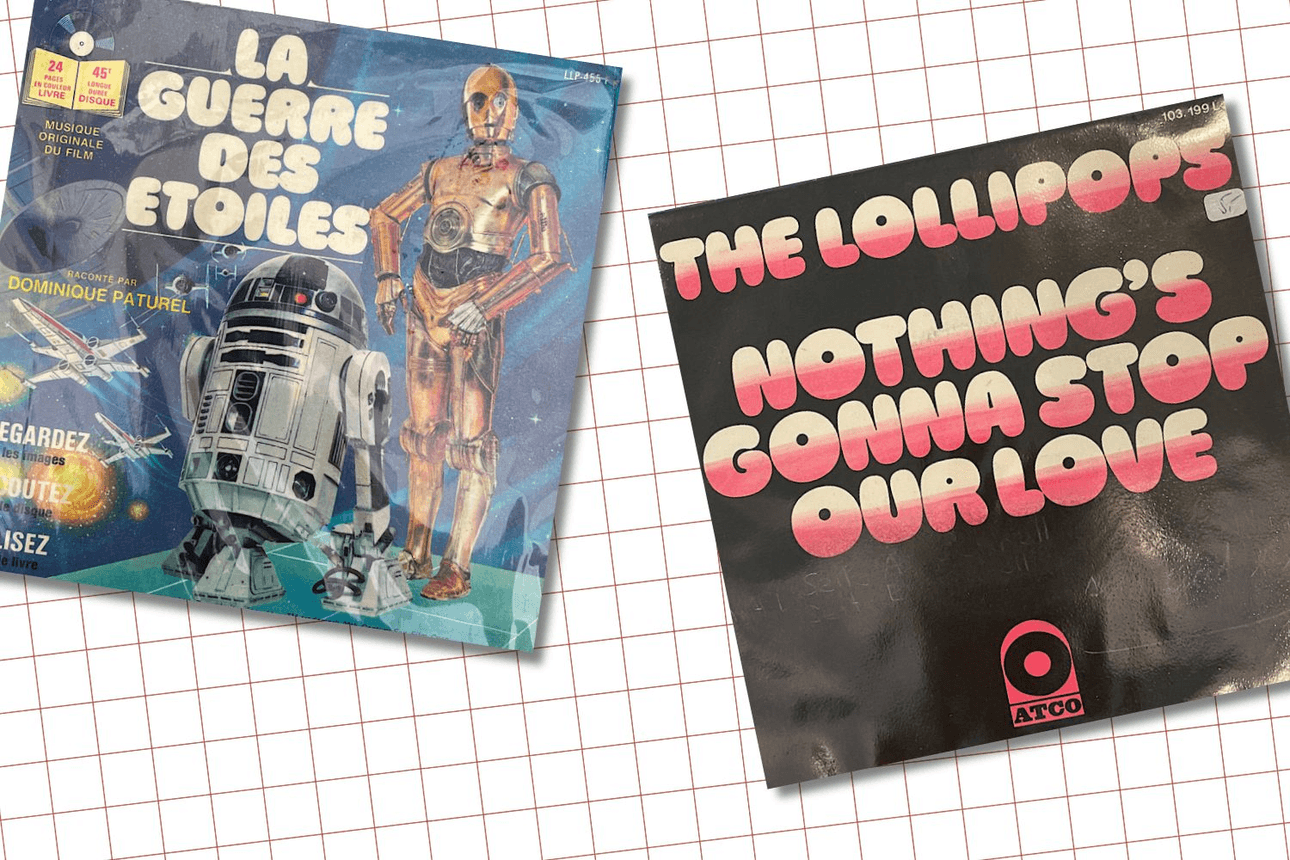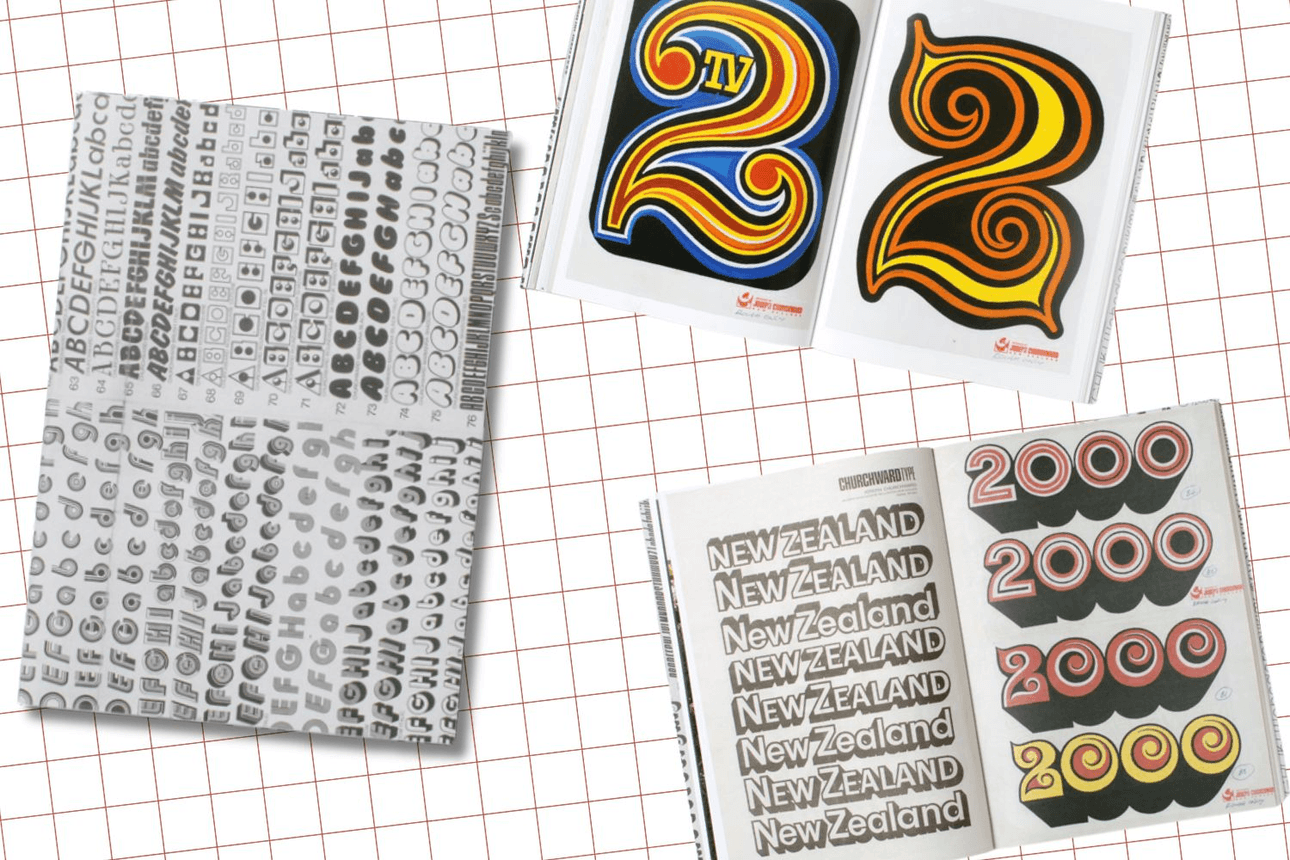
Churchward Roundsquare was chosen for Bugonia. (Images: Universal, Amazon, City Gallery)
The Samoan-New Zealand typographer behind the beloved Bugonia font
One of several surprising things about the new Yorgos Lanthimos film, the font was designed by the late Joseph Churchward, whose work has shaped the look of New Zealand life for decades.
You can expect surprises going into any Yorgos Lanthimos film, but the Greek filmmaker’s latest comes with a New Zealand easter egg in its marketing campaign and title card: Churchward Roundsquare.
The clued-up and font-savvy will have identified the typeface immediately as the handiwork of the late font designer Joseph Churchward, who was born in Samoa but lived and worked in New Zealand for much of his adult life.
It’s the kind of film trivia that instils a particular patriotic pride – more so when you learn that the film’s graphic designer Vasilis Marmatakis found it via Te Papa, which put him in contact with Churchward’s daughter, who gave him the green light to digitise the font and use it. “It struck me as futuristic, but in a very analogue way, which is, in a sense, exactly what the film itself is,” Marmatakis told creative platform Its Nice That about the font choice. “It feels monumental yet sharp, even a little threatening.”
All of Churchward’s fonts were designed by hand (his business cards read “hand lettering is superior” and he rejected computers). He created 690 typefaces throughout his life, which took him from Samoa to Aotearoa, and back again several times. Among his many alphabets, which each took hundreds of hours, were designs named after his wife, Tua, and daughters.
The 2000s and 2010s saw a flurry of attention and recognition. There was the Te Papa exhibition “Letter Man: Joseph Churchward’s world of type” in 2008, after which a collection of his work was placed in the museum’s Pacific Cultures Collection. He was the subject of a 2009 book by David Bennewith, and the following year Churchward made the Queen’s Honours list for services to typography, which acknowledged his renown as “the world’s most prolific typeface designer”. After his death in 2013, Wellington’s City Gallery held an exhibition, “Churchward Samoa”, in 2014.
With Roundsquare introducing his designs to new audiences, let’s take a look at some Churchward classics.
Churchward Samoa
Created as a tribute to the Apia-born designer’s homeland (others referenced his Chinese heritage), this font and 33 others are available to purchase from BluHead Studios, which Churchward tasked with digitising his extensive archive – a process outlined by print studio Boot Boyz Biz, which produced a now-sold-out Churchward T-shirt. It’s festooned with his typefaces, including Churchward Brush Italic, which calls to mind the grocery store signwriting, and Churchward Ta Tiki.
Churchward Samoa is one of dozens of the designer’s fonts to be digitised. (Images: BluHead Studios, Boot Boyz Biz)
Churchward Māori
A curvaceous font that incorporates koru motifs, it was designed amidst the politics of the 1980s. One of Churchward’s most familiar designs, it can be seen on the cover of Salient magazine and Hana Pera Aoake’s 2020 book A bathful of kawakawa and hot water, who also co-edited the publication He Kotahitanga, which features the font throughout.
Churchward Māori has been used for several publications. (Images: Salient, Moana Fresh, Ke Te Pai Press)
Churchward Marianna
Named after one of his daughters, Churchward designed this when she was six. He described the font as “plumpy”, and it appears to have been a popular choice for record covers in the 1970s, particularly in France.
Marianna’s been used for everything from a 1979 French-language Star Wars audio book to this 1971 French single. (Images: Flickr/Fontsinuse.com)
Churchward International Typefaces by David Bennewith
By all accounts, the definitive book on Churchward. He worked on it with author and designer David Bennewith via correspondence (packages full of photocopies, newspaper clippings and letters) and in-person meetings. It details the typographer’s lengthy and influential career – including some rejection letters received for fonts he sent out into the world, unsolicited designs for TV networks, political parties, government departments and even a new national flag. Currently out of print, Auckland Central Library holds a copy in its Heritage Collection, which can be viewed by appointment only, and there are copies at Manukau and Takapuna research libraries.
Graphic designer David Bennewith worked with Churchward on the publication. (Images: David Bennewith)